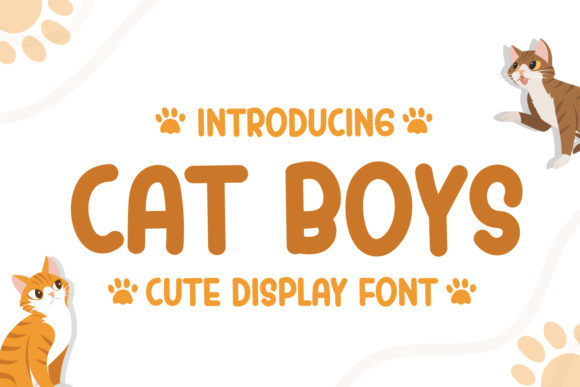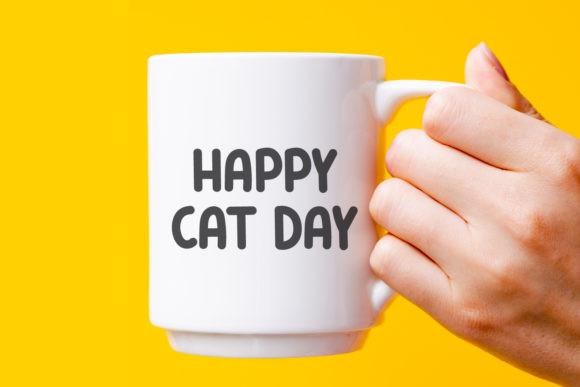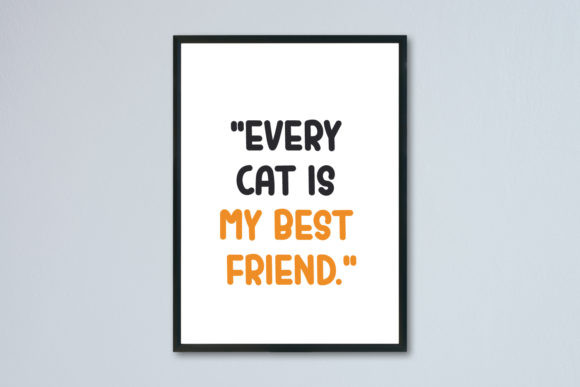
Cat Boys Font
Cat Boys is a cute and friendly display font. Fun and a bit quirky, this font will make each of your designs stand out. Add it confidently to your projects, and you won’t be disappointed.